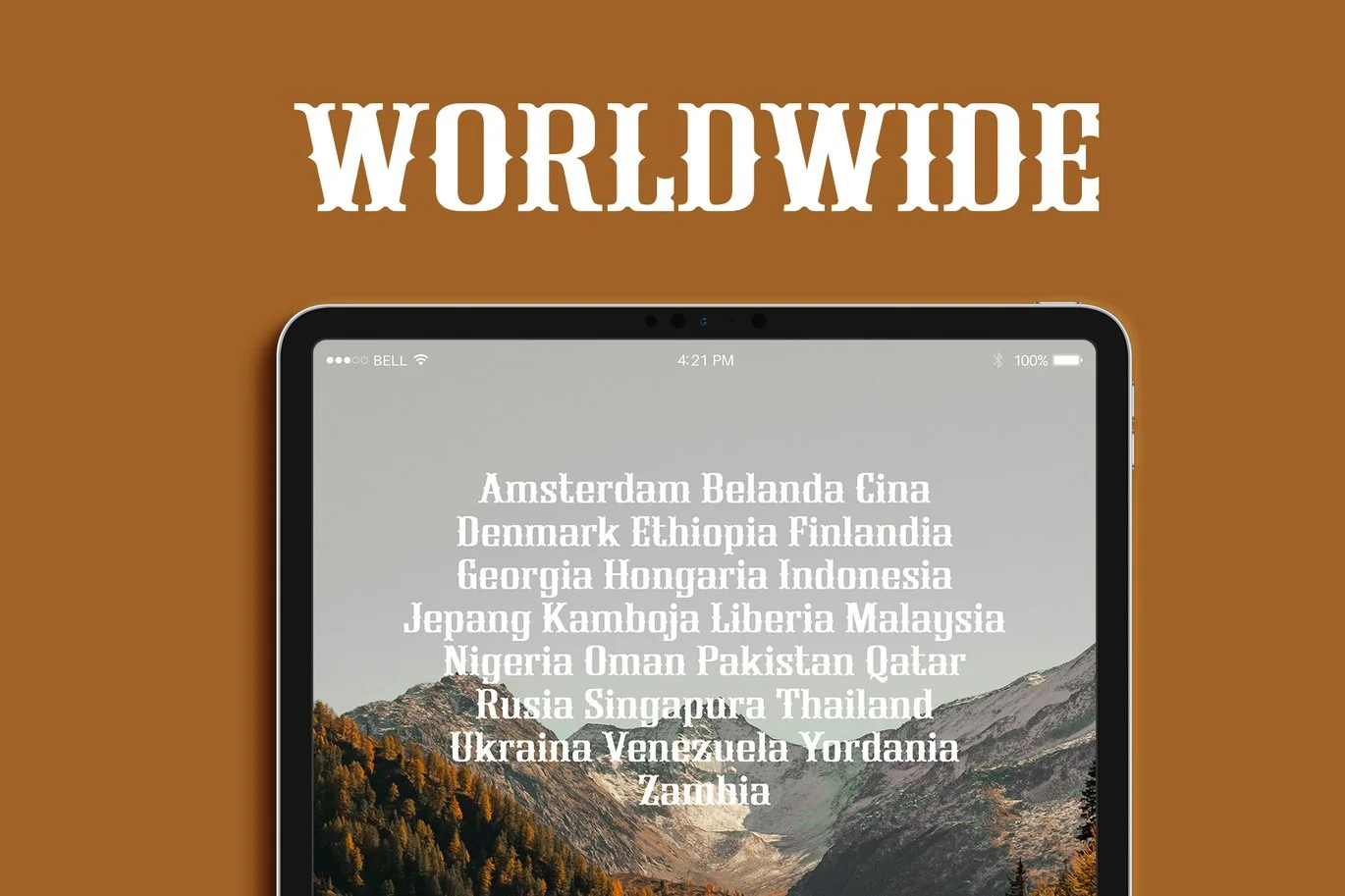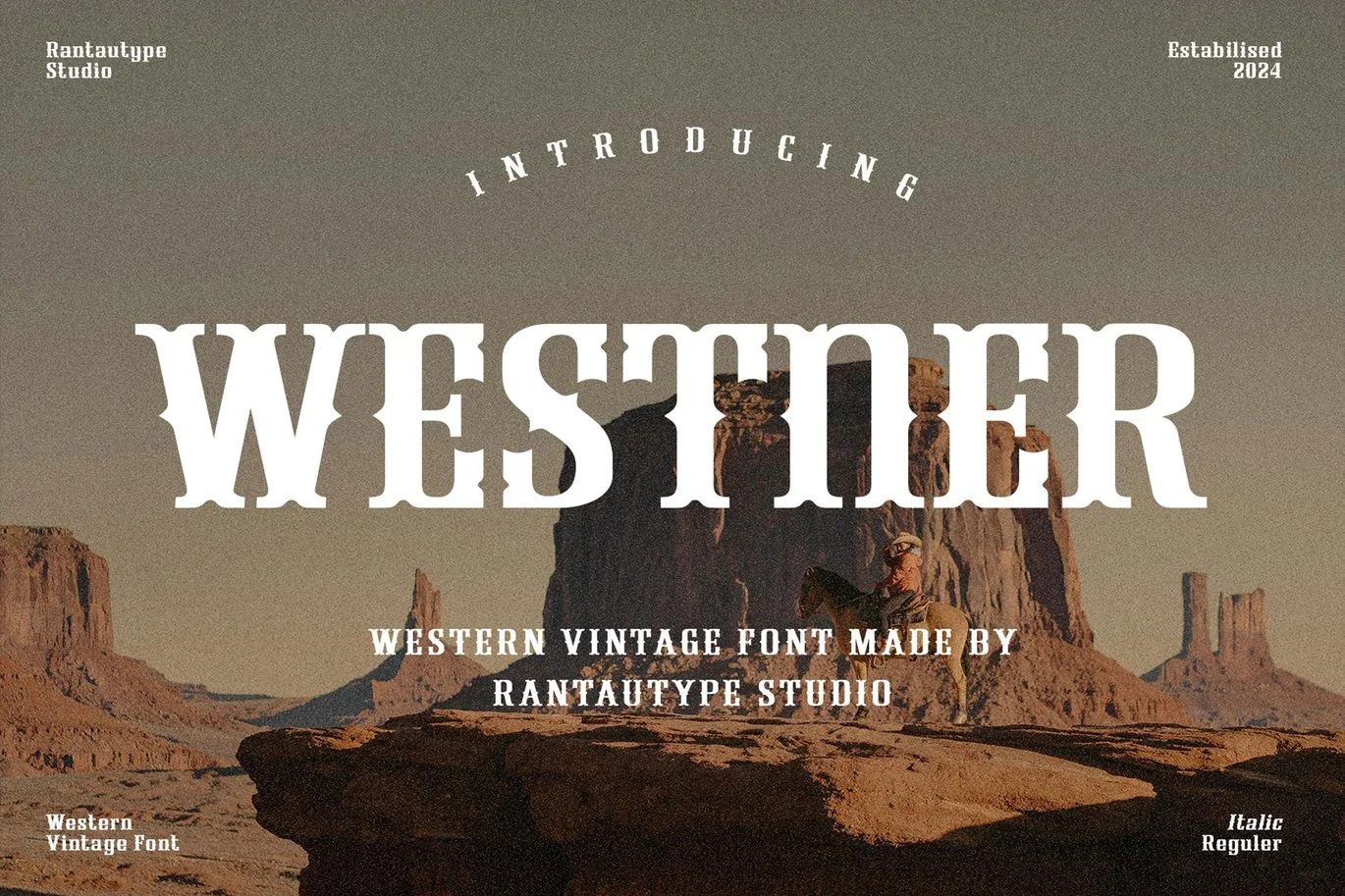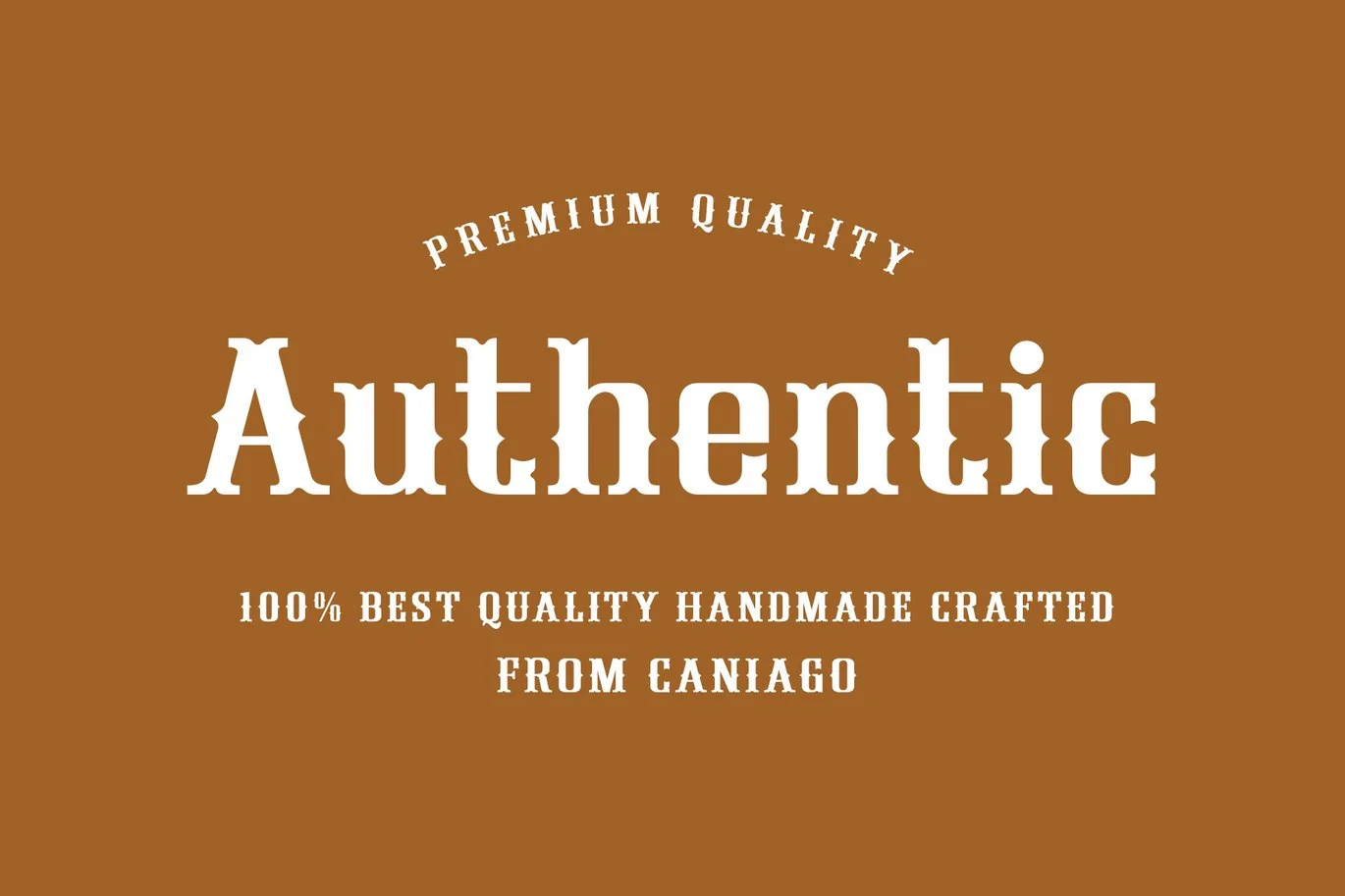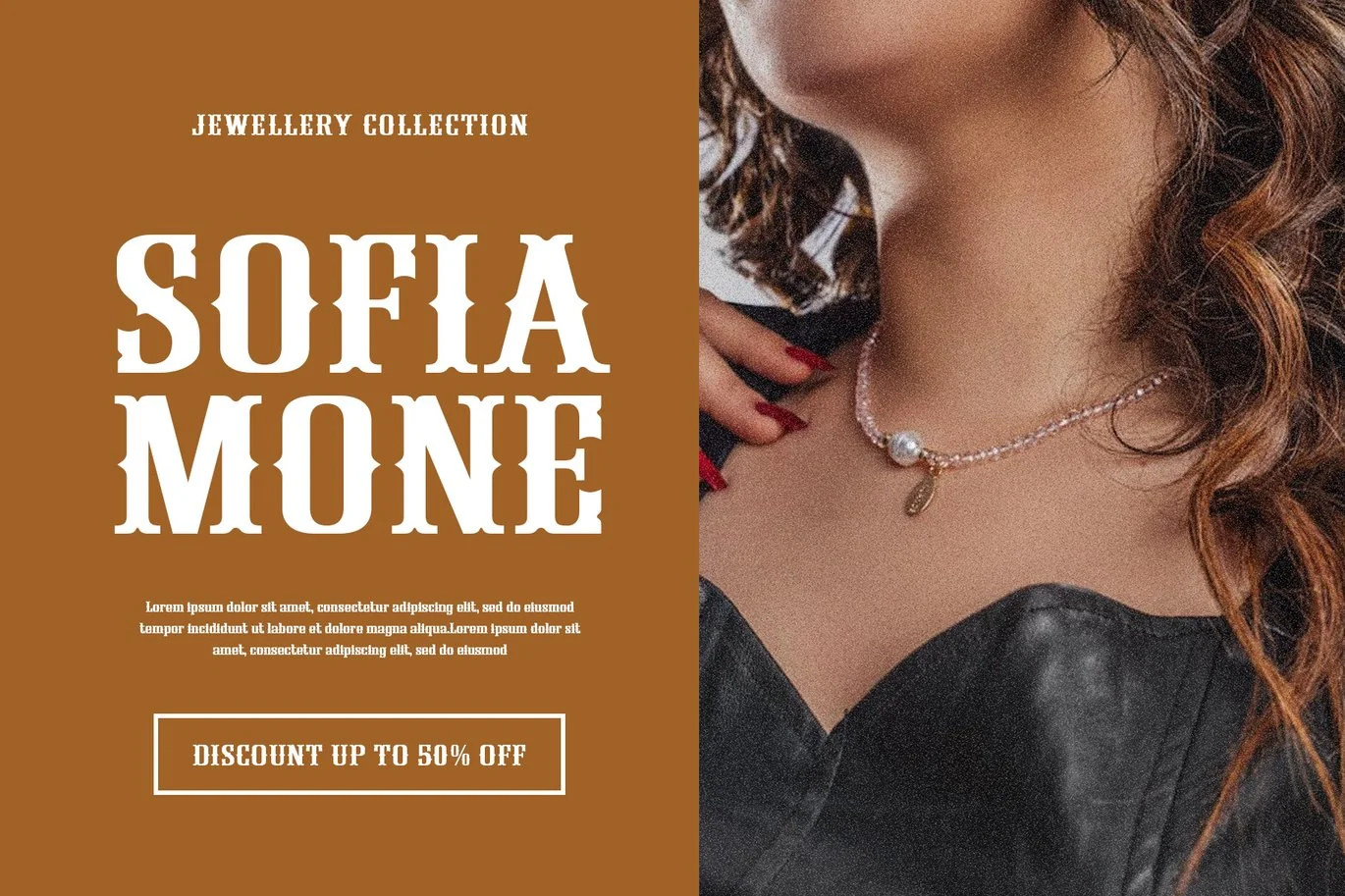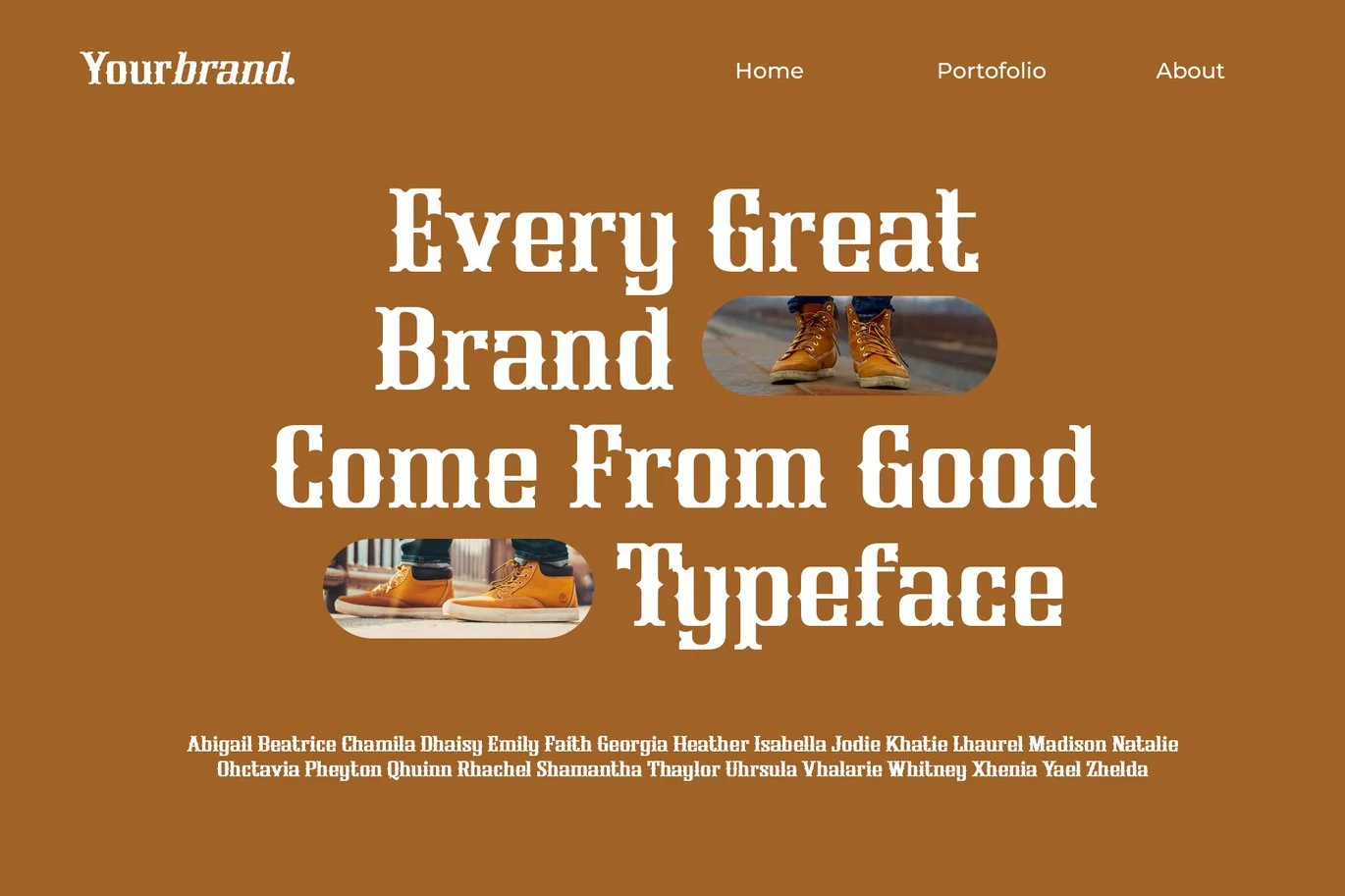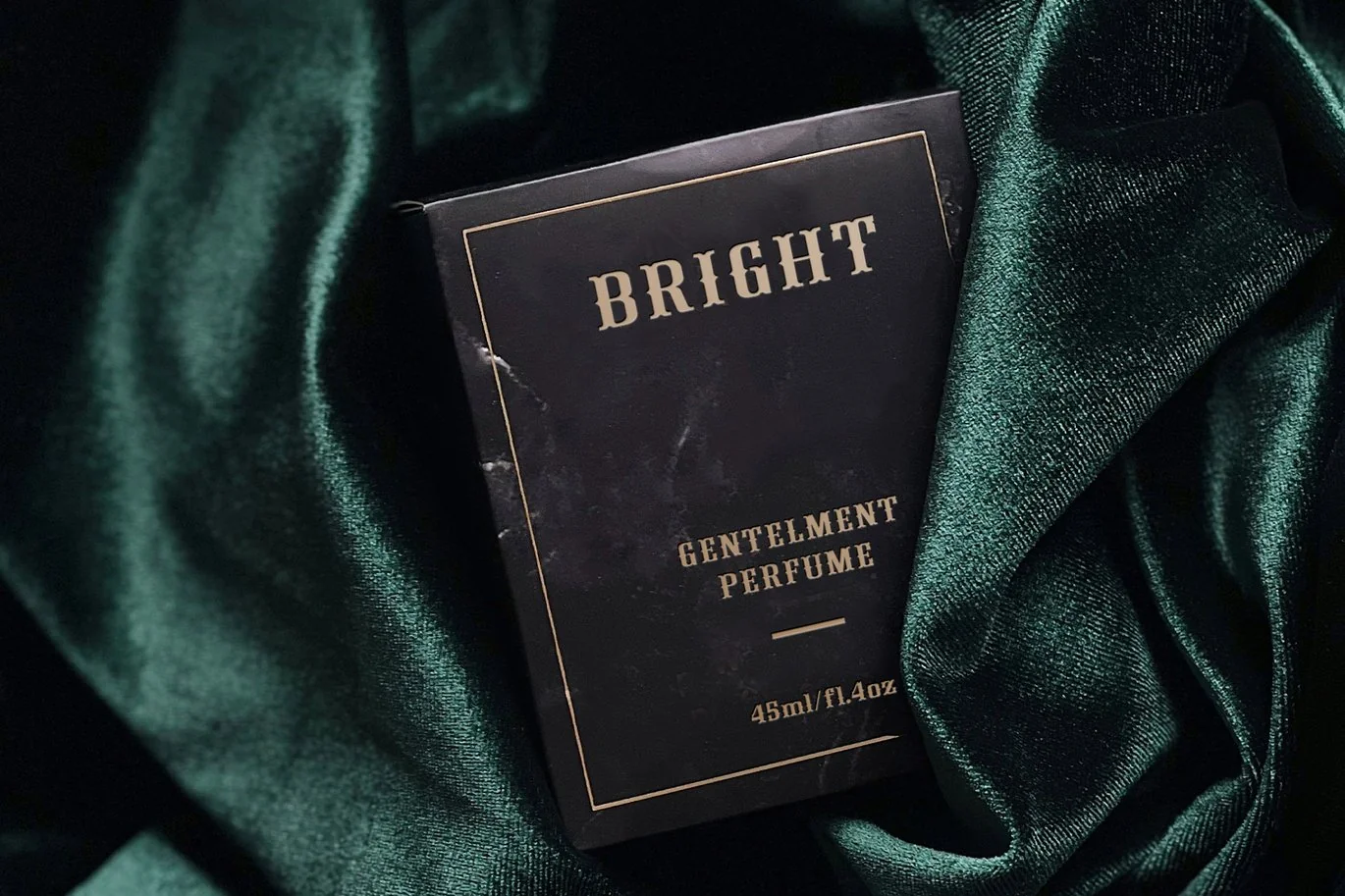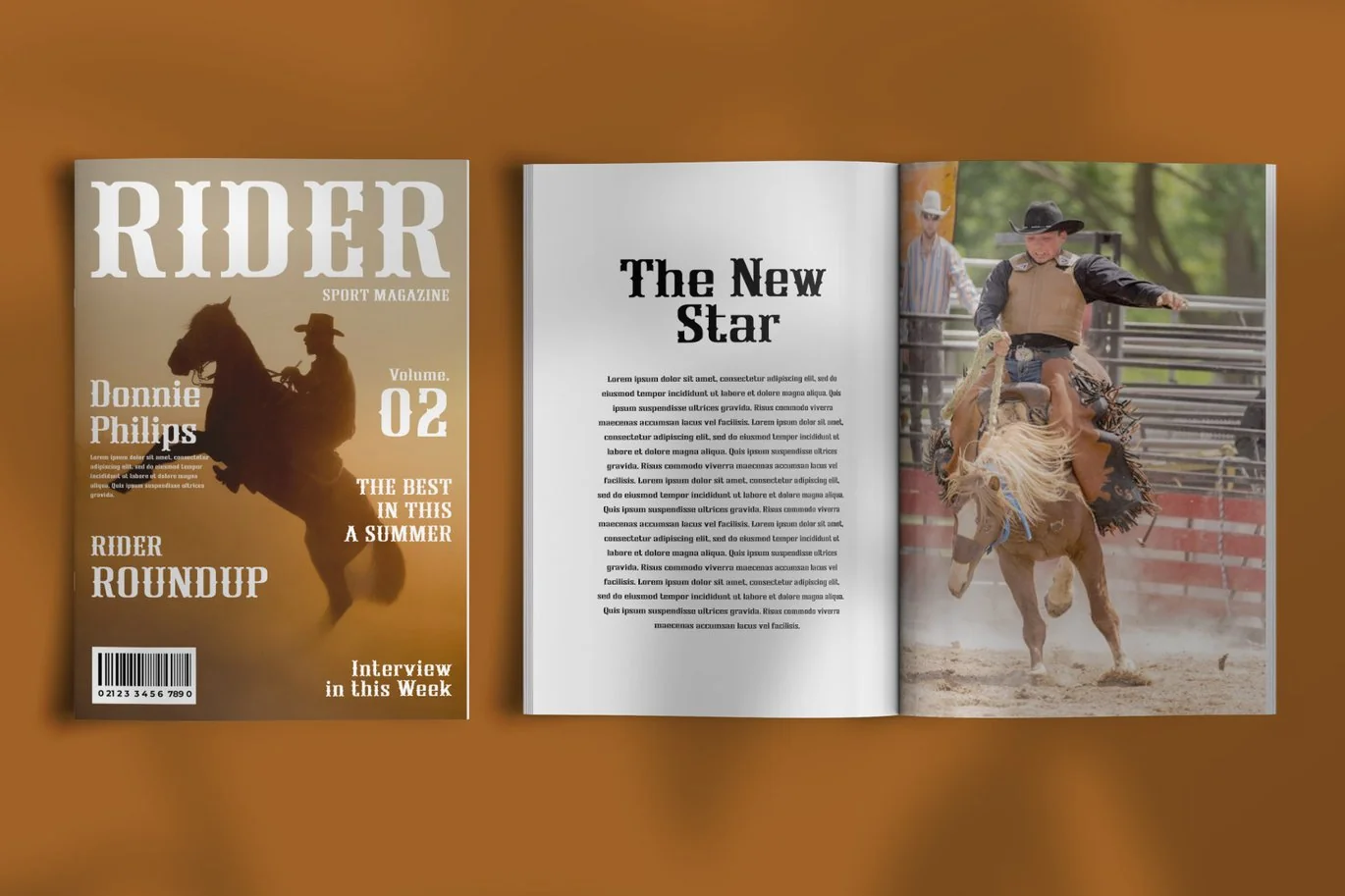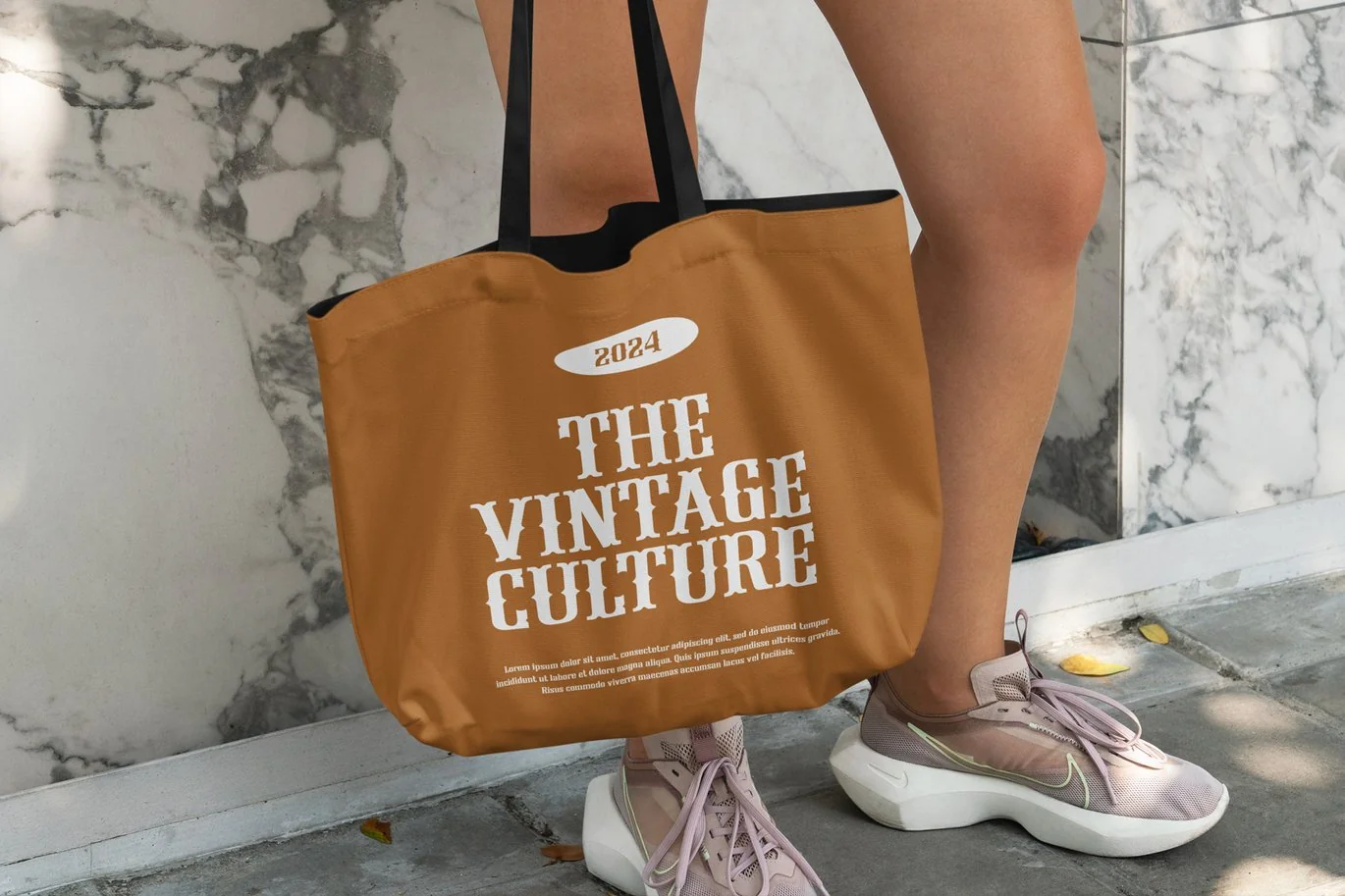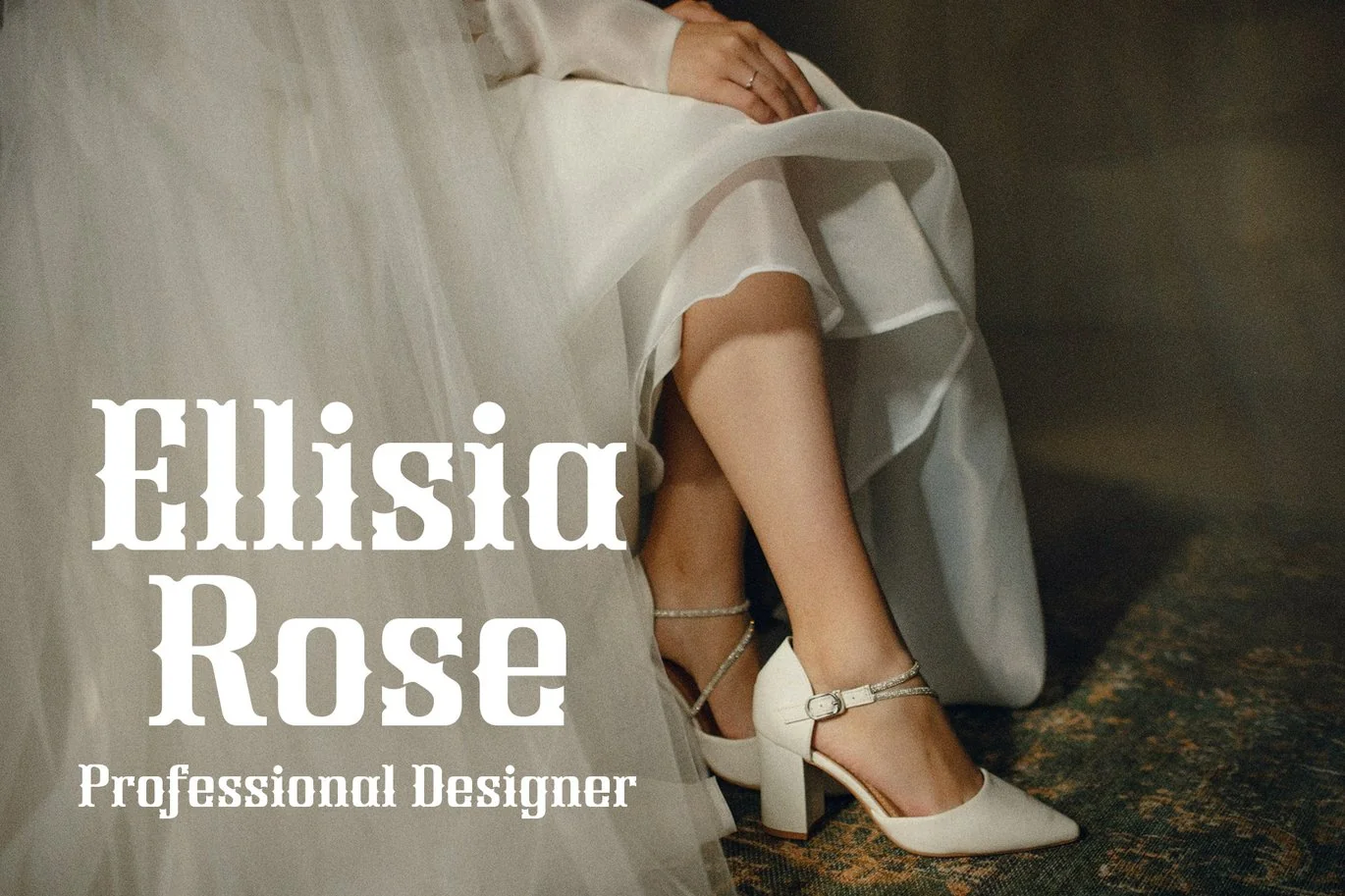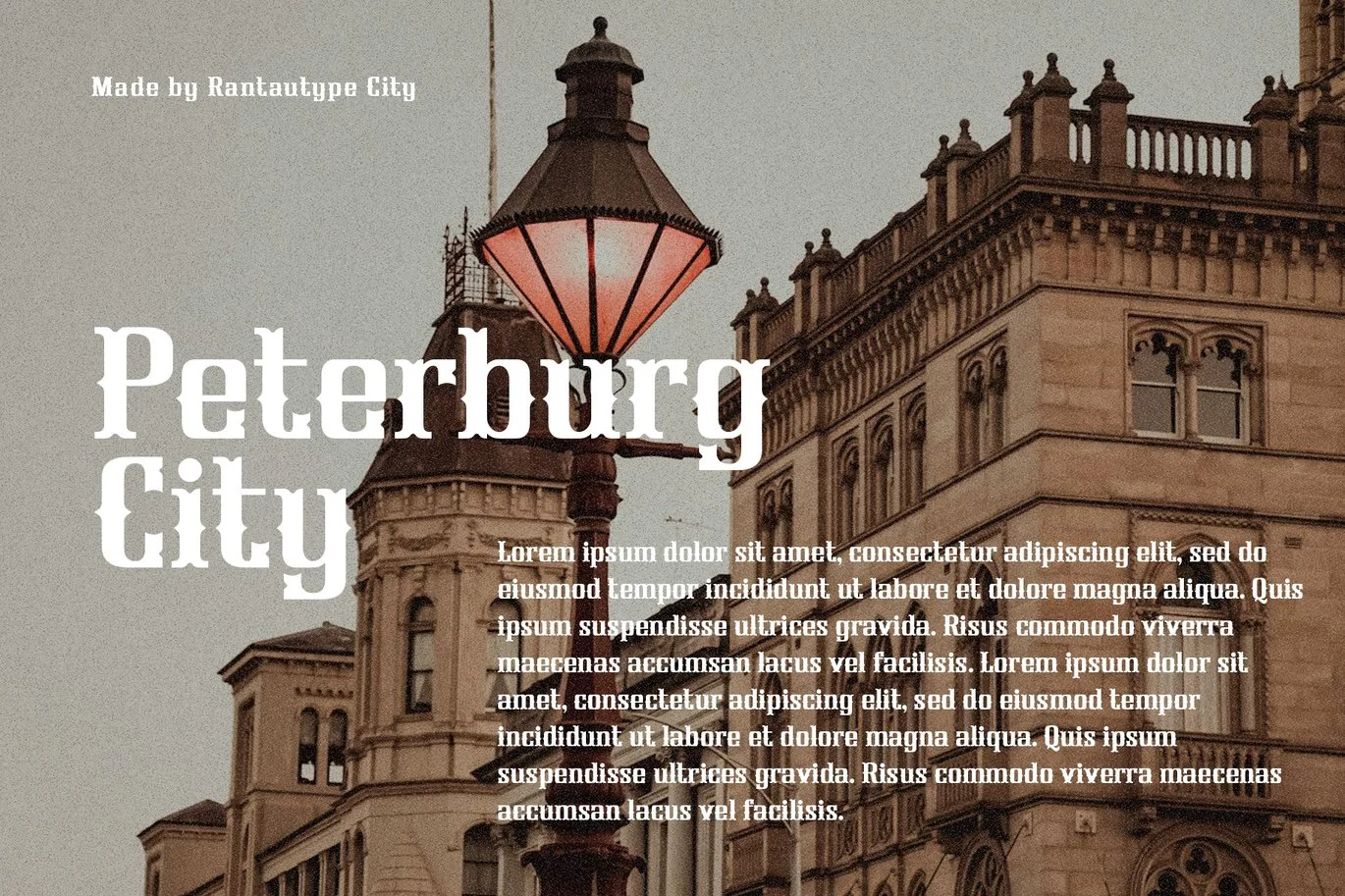
Westner Vintage Western Font
Westner is vintage font inspire by old american cowboy visual design. Westner come with vintage letterforms and spirit of western.
Westner is a perfectly choice for any creative endeavor, chic, lifestyle design such as logos, advertisements, stationery, branding project, display and magazine, invitation, corporate brand, product design, label, business project and many other project with western touch.